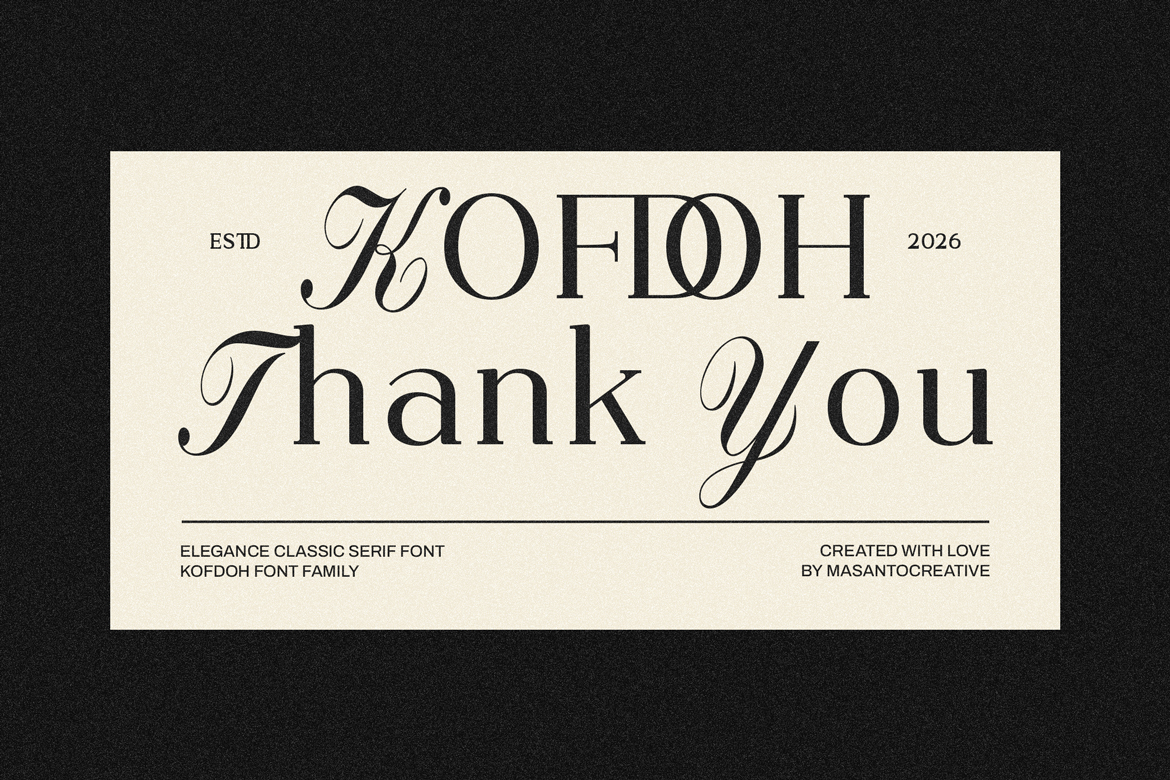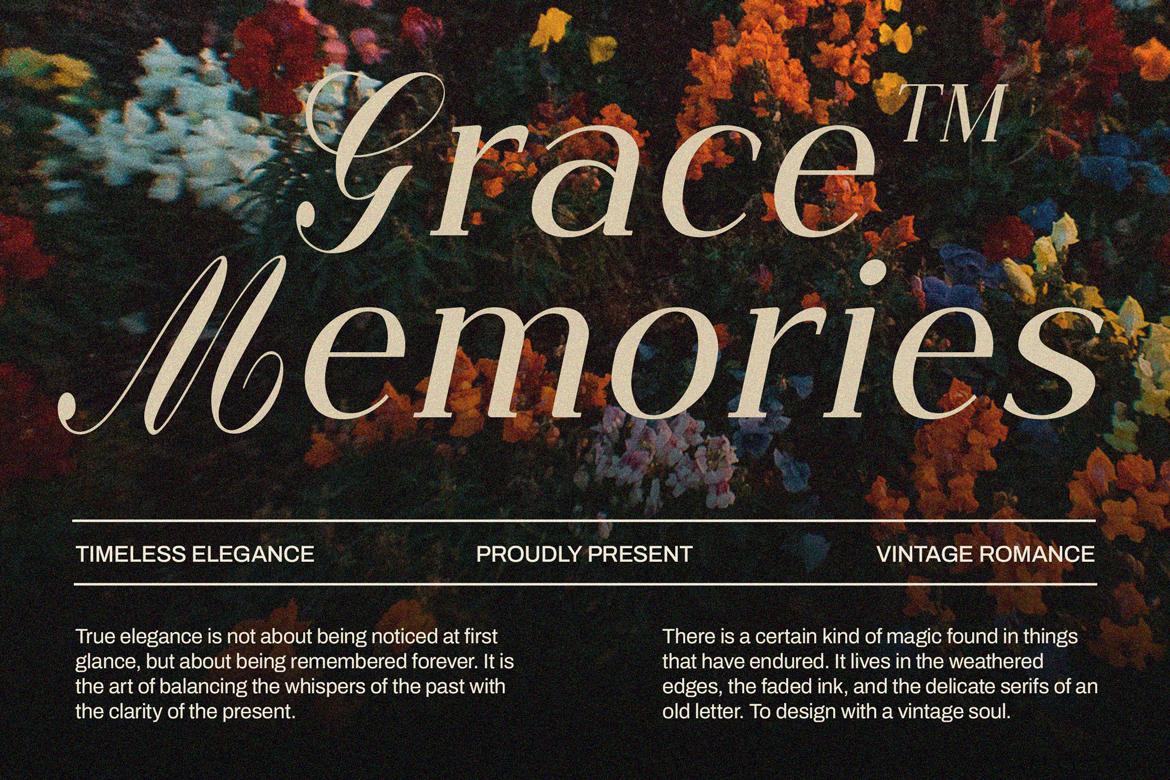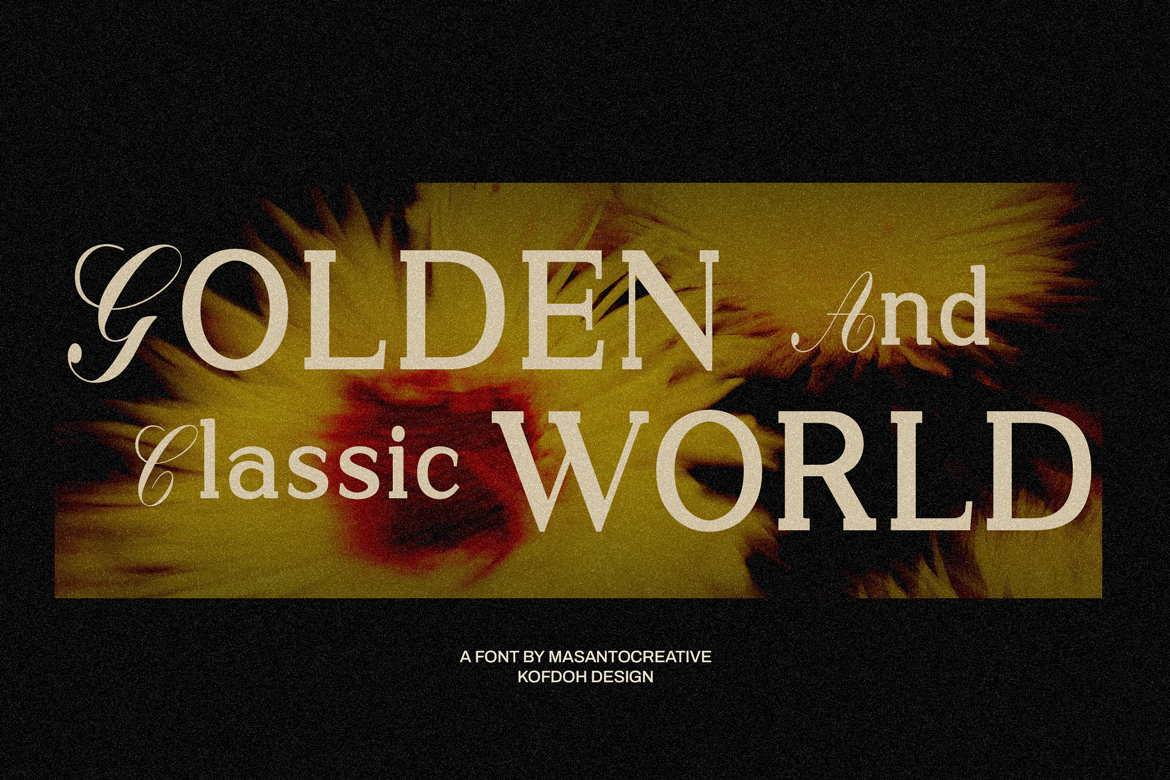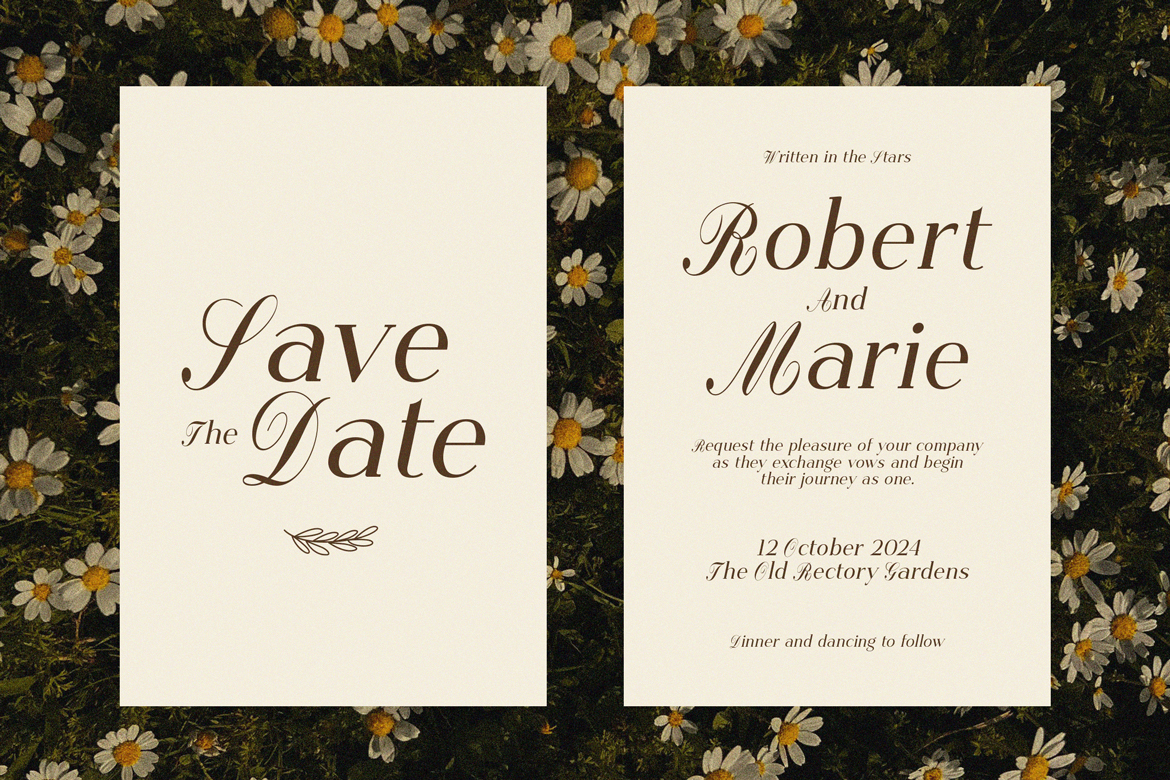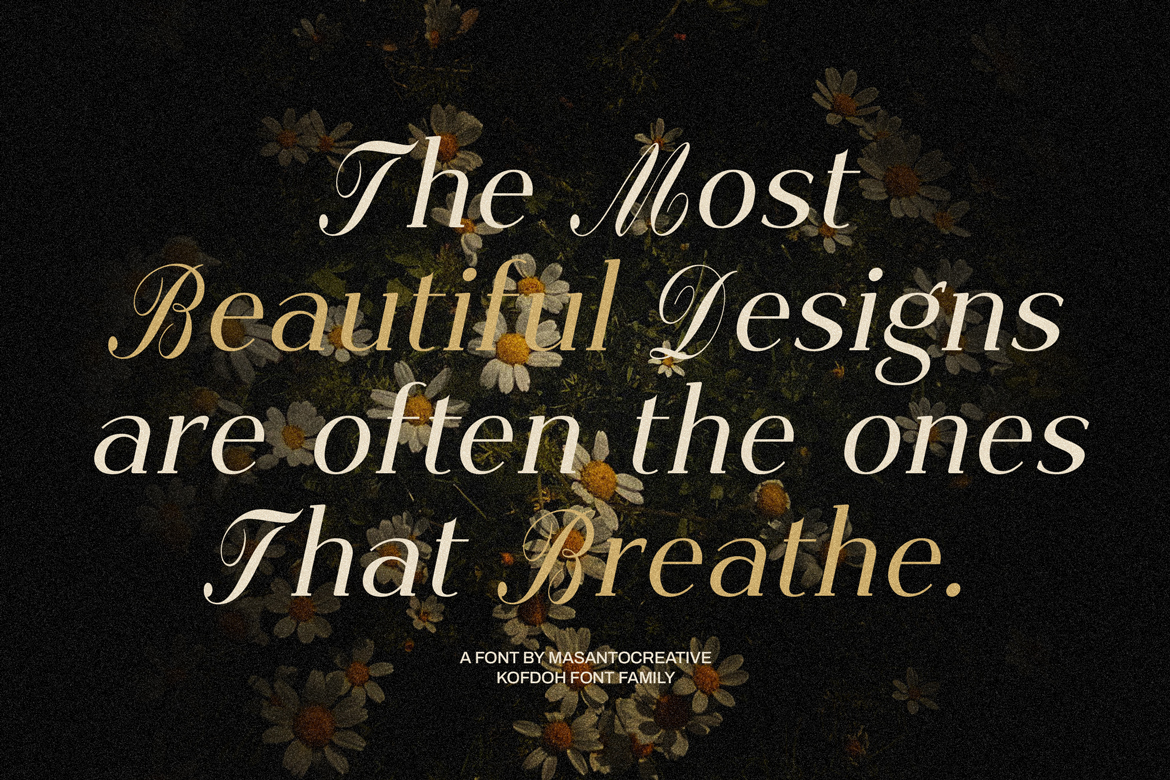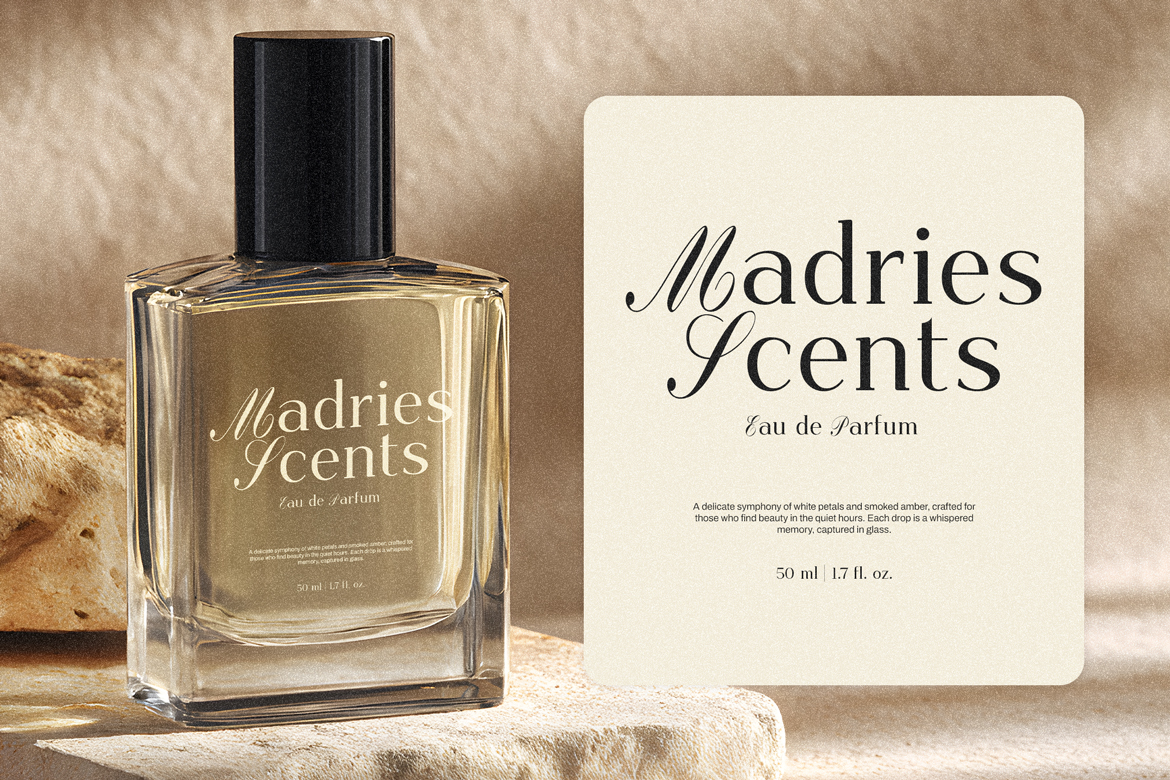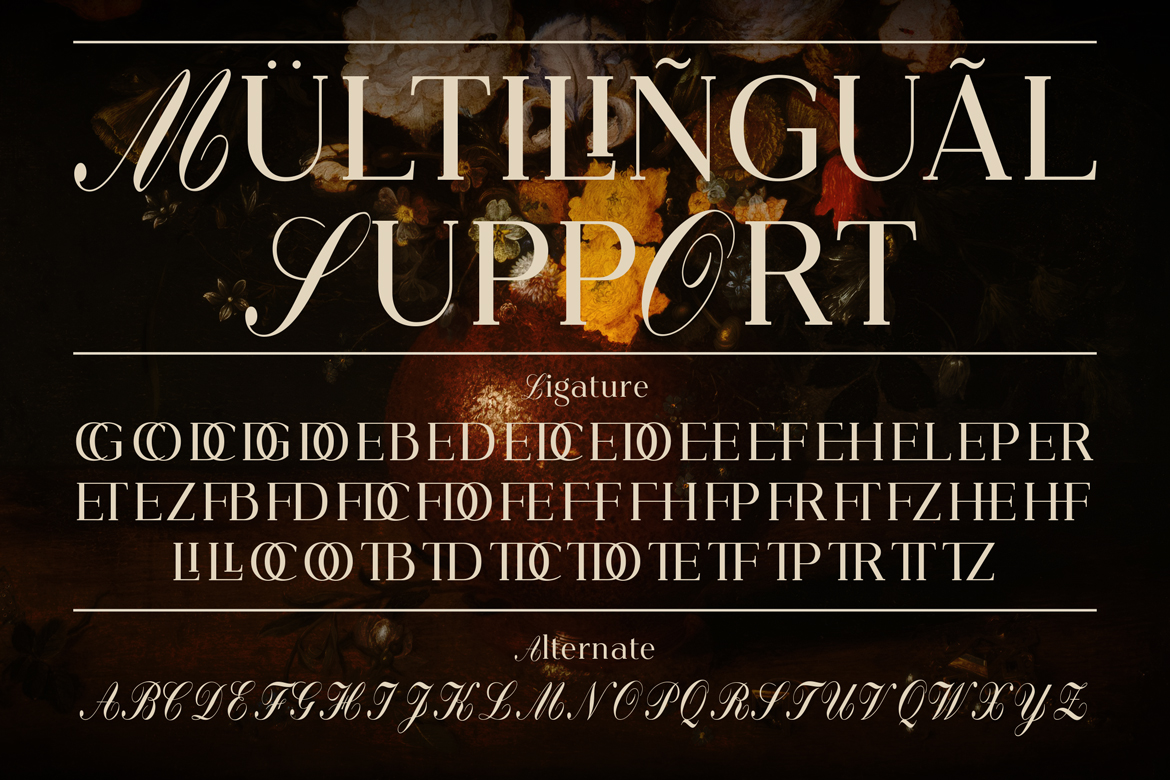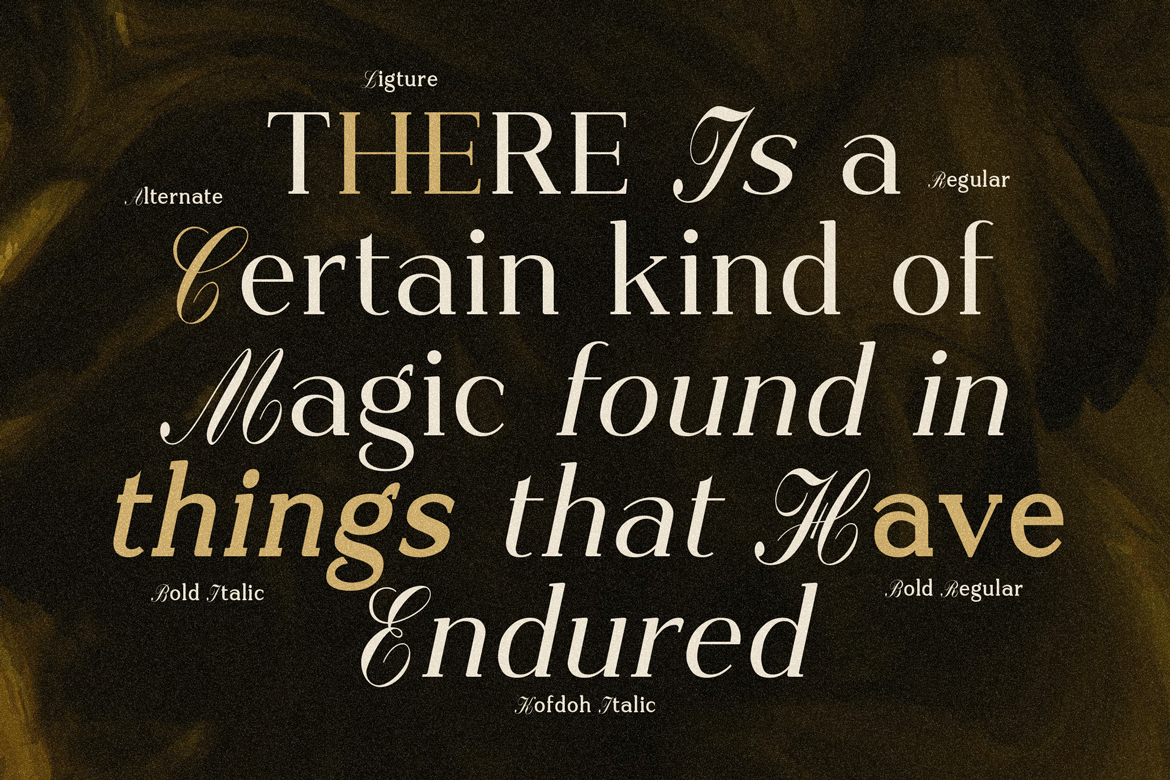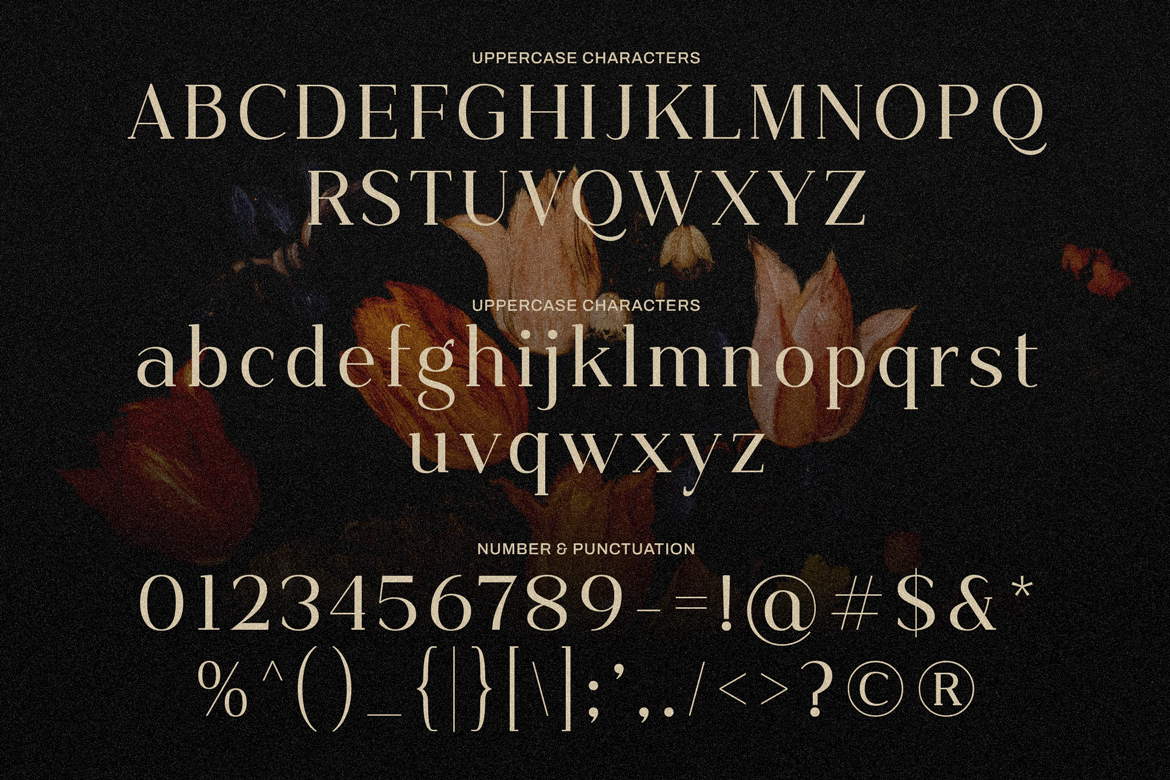
Kofdoh Elegant Serif Font Family
About Kofdoh Elegant Serif Font Family
Kofdoh is an elegant serif font family designed for luxury branding, editorial design, wedding invitations, logo design, and beauty packaging. This classic serif typeface features stylish alternates and professional ligatures that help you create smooth, premium typography for modern branding projects.
Kofdoh includes:
• Uppercase & Lowercase Characters
• Numbers & Punctuation
• Stylistic Alternates
• Discretionary Ligatures
• Multilingual Support
• Regular & Italic Styles
This font is ideal for:
• Luxury Branding
• Editorial Layout
• Wedding Invitation
• Logo & Logotype
• Perfume Packaging
• Fashion Magazine
• Product Packaging
• Social Media Content
• Business Identity
• Boutique Branding
• Website Typography
• Ligature & Stylistic alternate